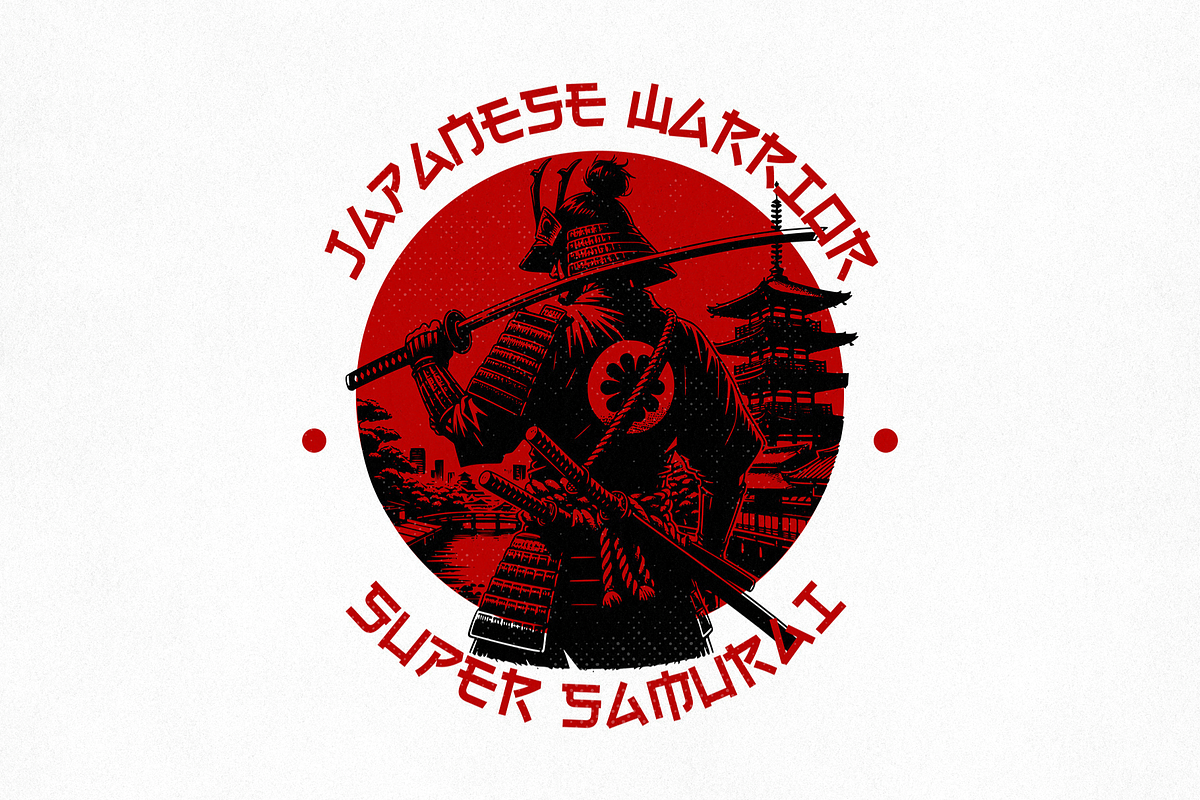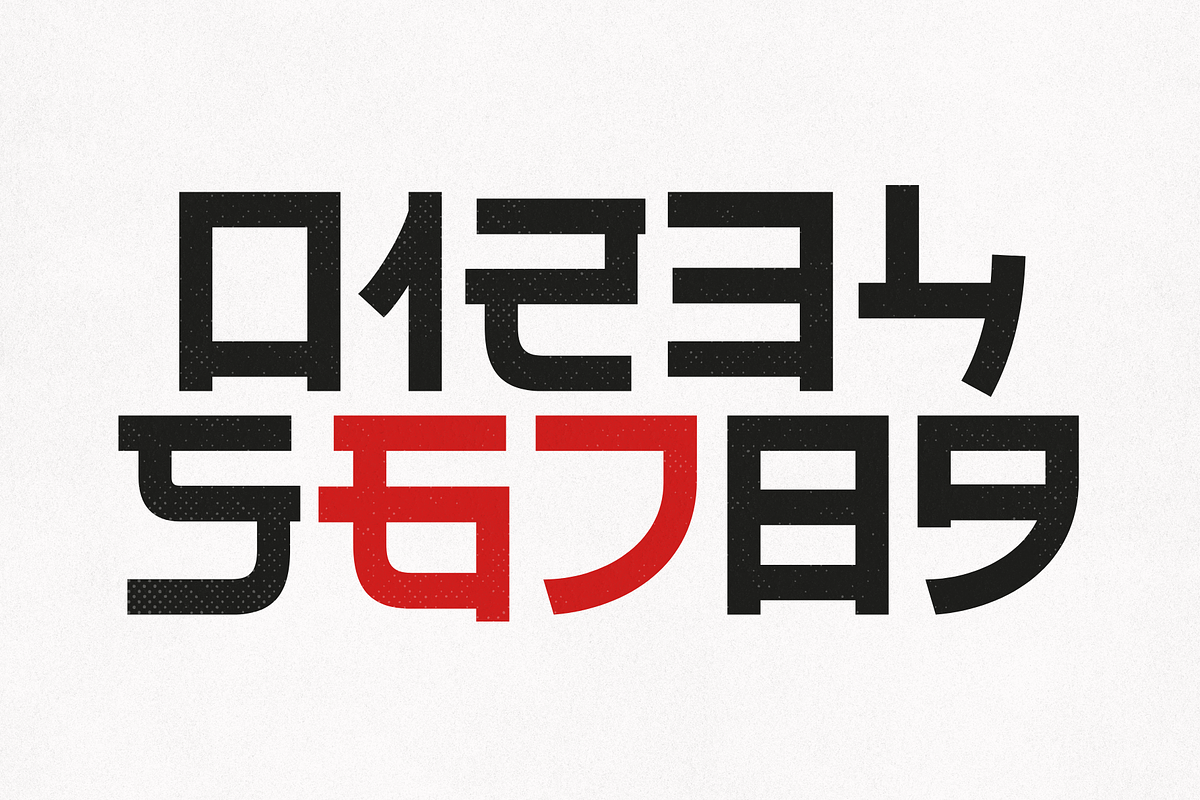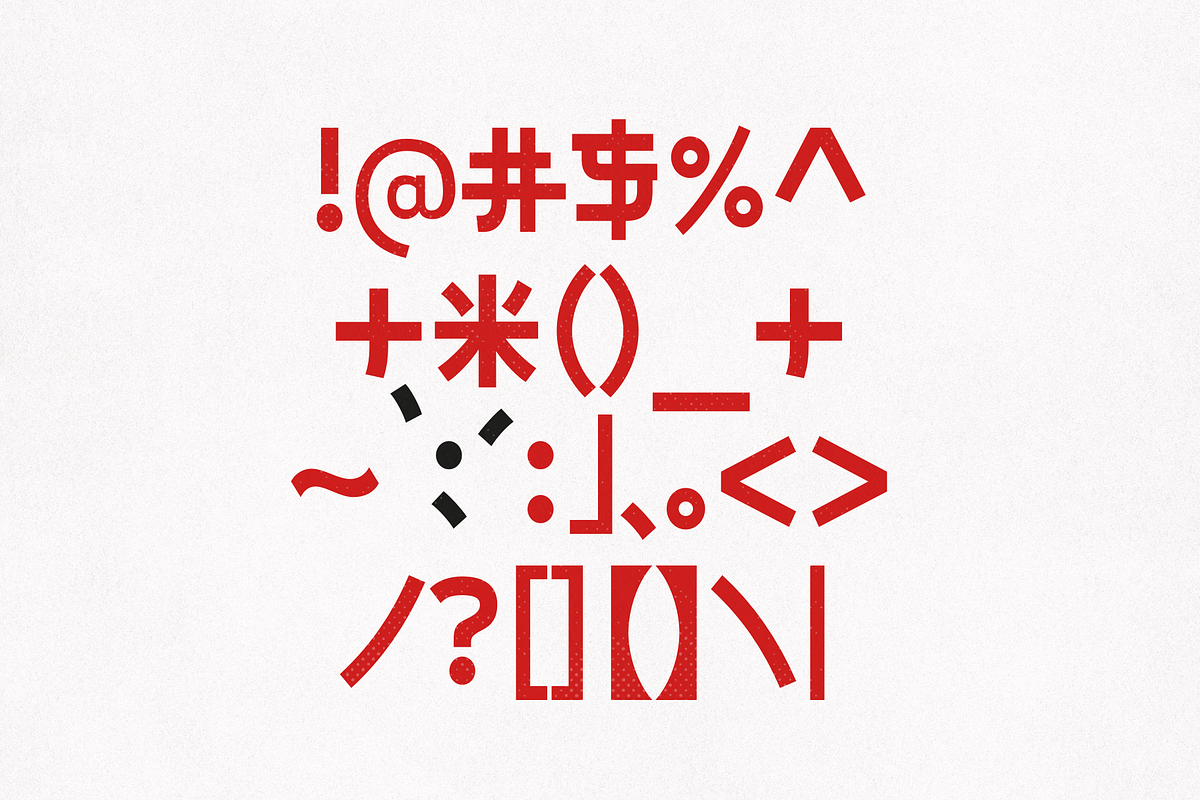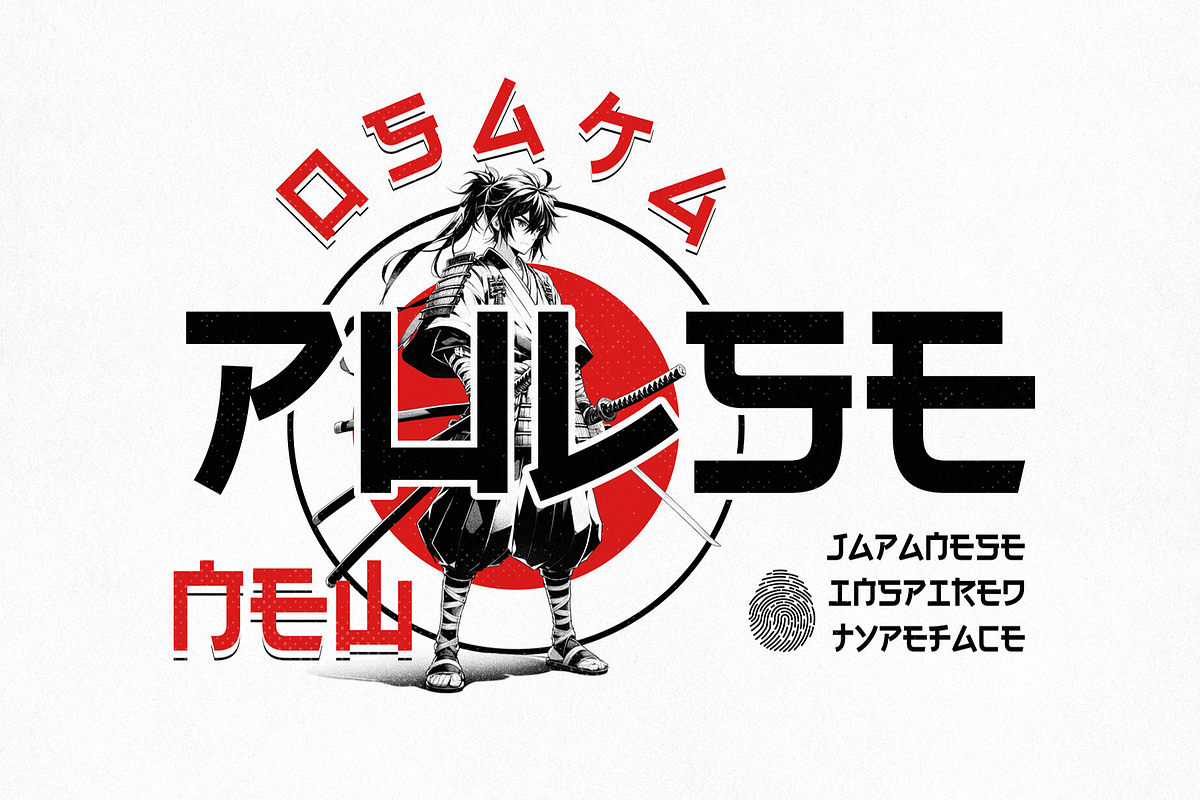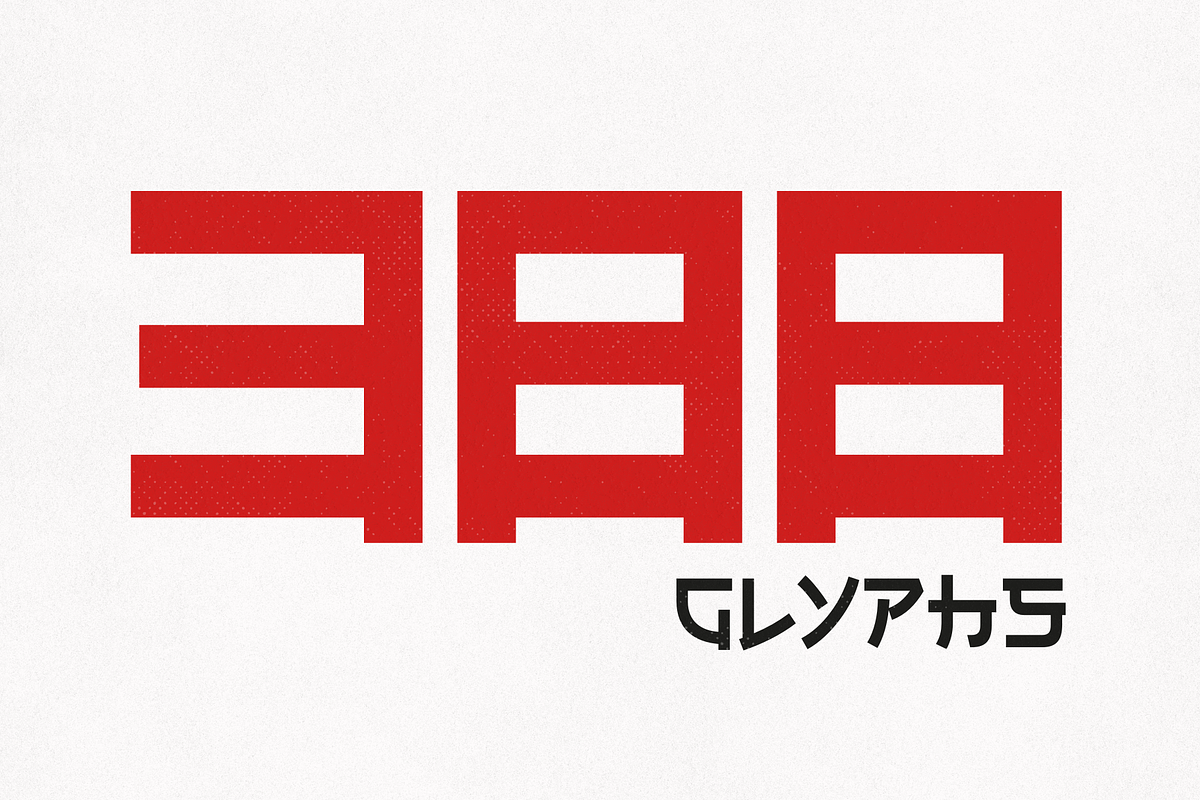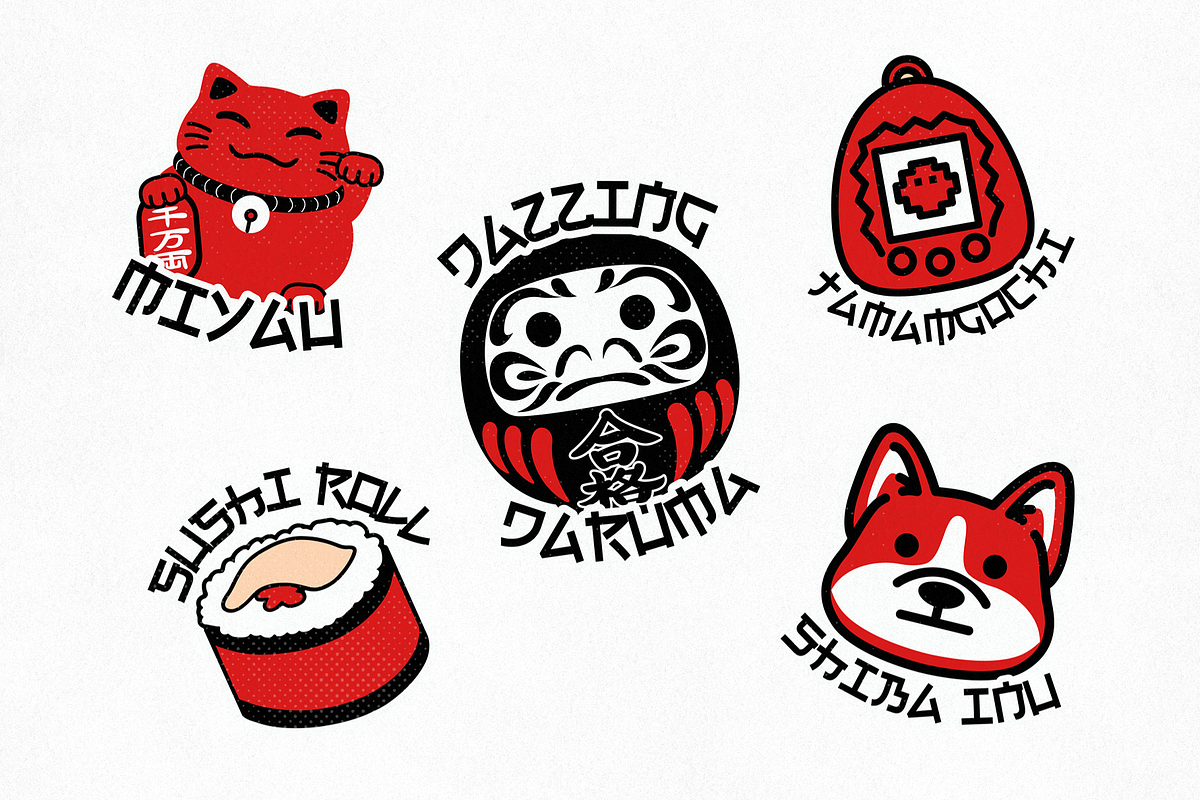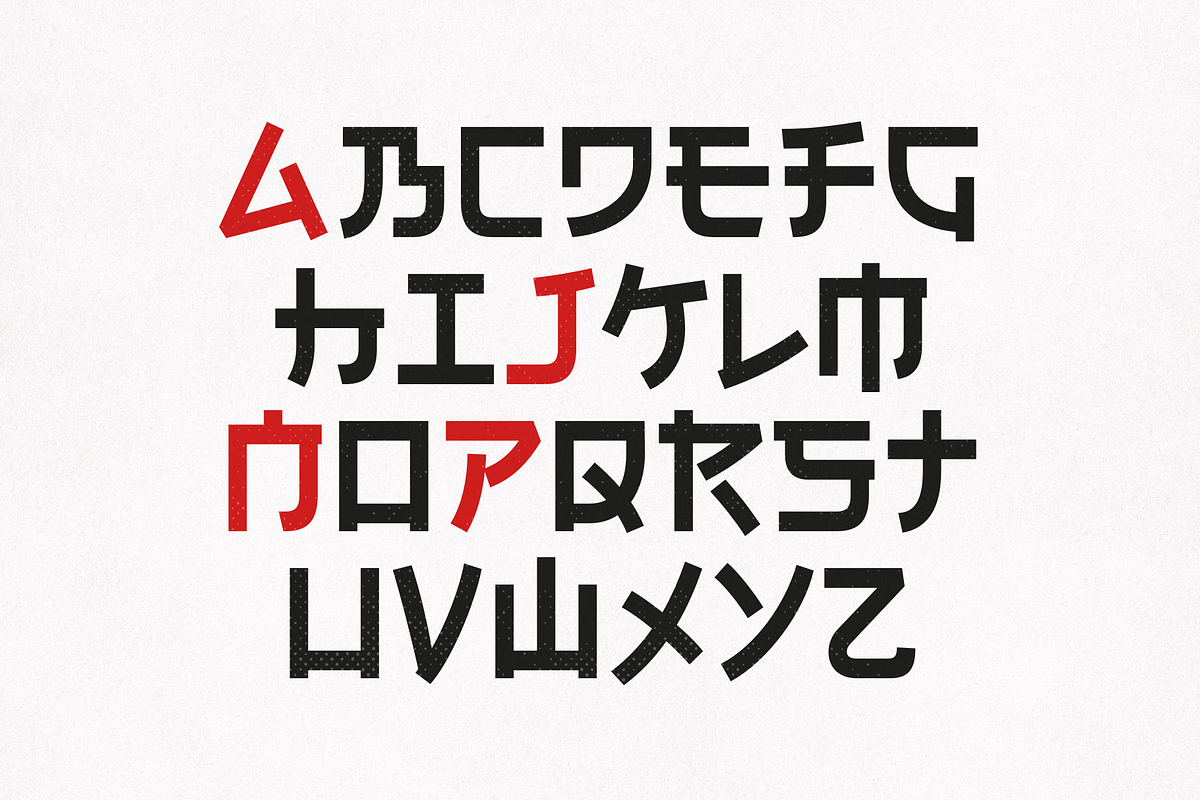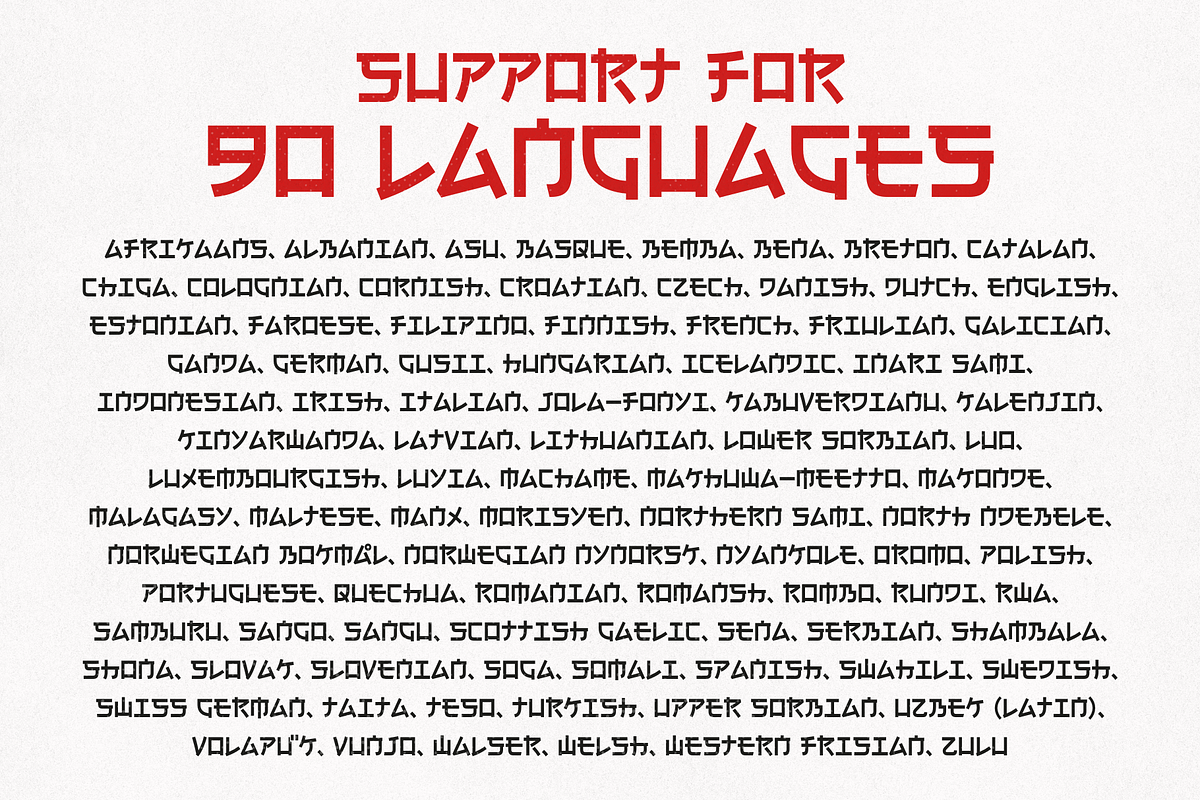
Osaka Pulse - Japanese Inspired Type
Introducing Osaka Pulse, a meticulously crafted Japanese-inspired typeface that seamlessly blends heritage with contemporary aesthetics. Rooted in the timeless elegance of traditional calligraphy and infused with the dynamic energy of modern design, this font encapsulates the soul of Japan. Whether you're designing for cultural projects, branding, digital art, or immersive storytelling, Osaka Pulse delivers an unparalleled sense of authenticity and refinement.
With sharp yet fluid strokes, balanced geometry, and a rhythm that echoes the vibrancy of Japan’s neon-lit streets and serene temples, Osaka Pulse is a versatile typeface suited for virtually any Japanese aesthetic. It commands attention in headlines, enhances visual identity in logos, and breathes life into intricate design compositions.
Feel the pulse of Osaka, where tradition meets innovation in every letter.